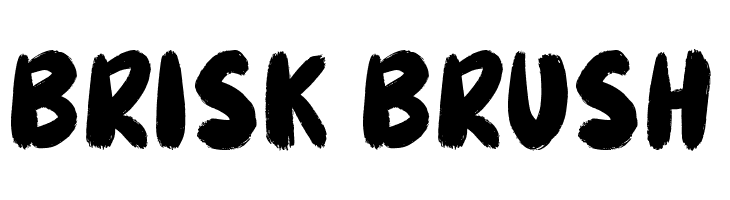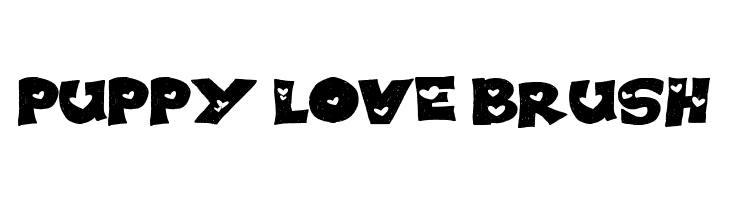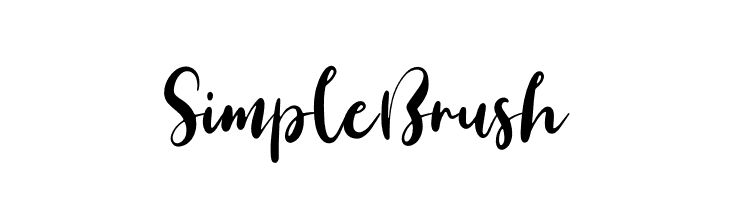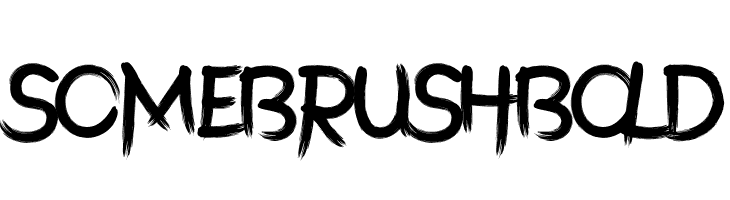
A dynamic brush-style font with expressive, hand-painted strokes.
A dynamic brushstroke font with an artistic and calligraphic style.
A bold, hand-drawn font with a brush-like texture and casual style.
A bold, brushstroke font with a dynamic, hand-painted style.
A bold, brush-style font with a casual, handwritten look.
A dynamic and expressive brush script font with fluid, connected strokes.
A bold, brush-style font with high contrast and dynamic strokes.
A bold, brush script font with a dynamic and fluid style.
A bold, brush-style font with dynamic, hand-painted strokes.
A dynamic, brush-style font with an expressive, hand-painted look.
A dynamic, brush-stroke font with a hand-painted, artistic style.
A bold, brush-stroke font with a dynamic and artistic style.
A dynamic script font with a rough, brush-like texture and flowing cursive style.
A playful, hand-drawn brush font with a casual and dynamic style.
A bold, playful brush-style font with thick outlines and dynamic character shapes.
A dynamic, brush-style font with a lively and artistic flair.
A bold, brush-style font with a playful, hand-painted appearance.
A bold, brush-stroke style font with a dynamic and textured appearance.
A bold, brush-style font with a dynamic and informal appearance.
A dynamic brush-style font with fluid, cursive strokes and varying thickness.
A bold, distressed brush-style font with an urban, graffiti-like appearance.
A bold, brush-style font with an energetic and hand-painted look.
A bold, brush-style font with dynamic and expressive strokes.